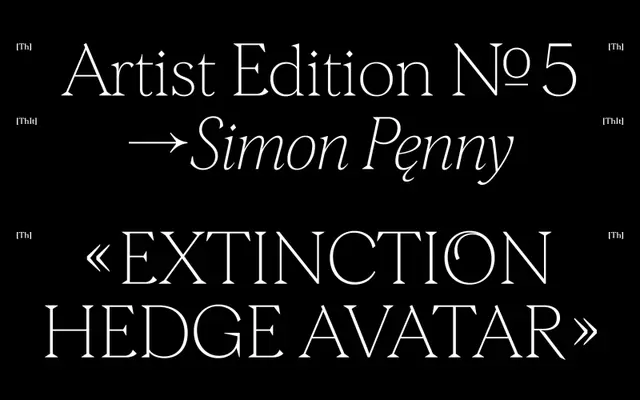
Morion specimen from The Designers Foundry
A transitional serif by David Einwaller, originally sketched in 2014 and substantially revised for a 2020 re-release across six weights with matching italics.
Six years passed between the first sketches and the 2020 re-release, which brought an extended glyph set, revised spacing and four new weights to the original two. The design sits between text and display use: tight enough to run at small sizes in print, sharp enough to hold its own at large scale. Condensed, dynamic italics give it a contemporary edge that sits comfortably against the classical proportions of the roman cuts.
The foundry explicitly describes Morion as a transitional serif typeface. Sharp details, high contrast and dynamic condensed italics confirm this classification, balancing text utility with display presence.